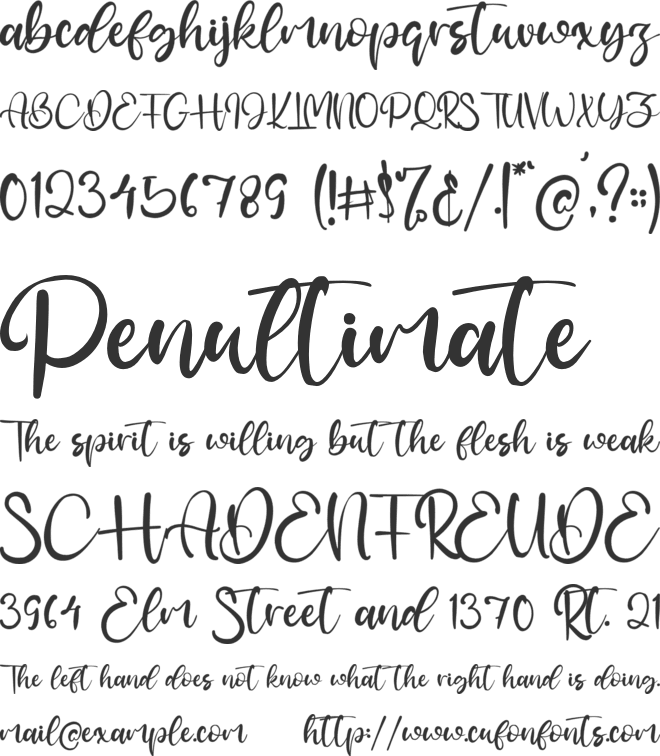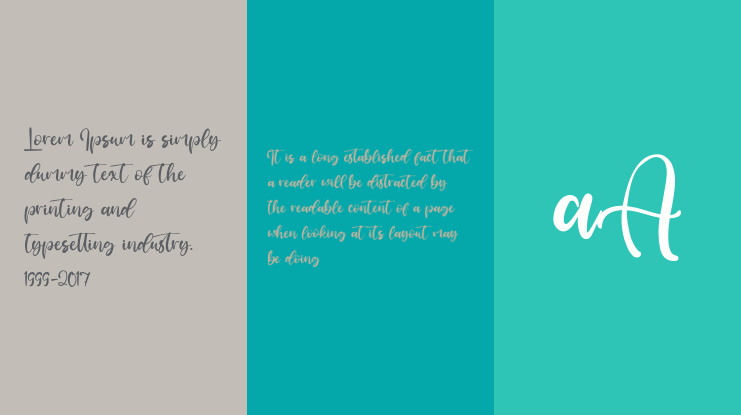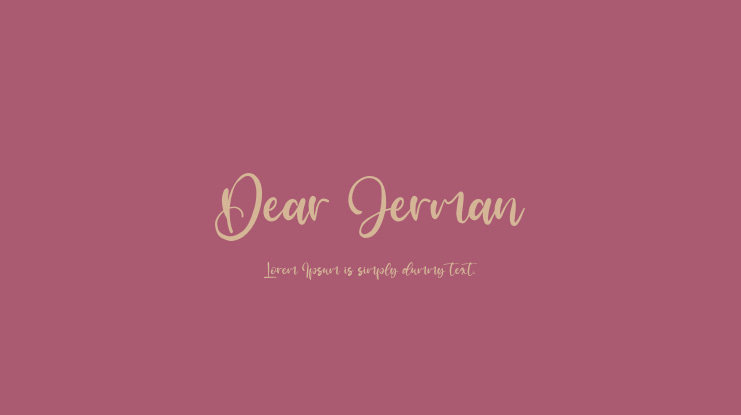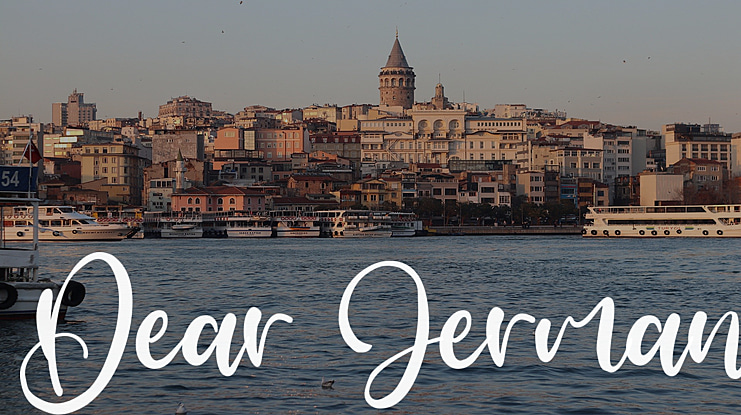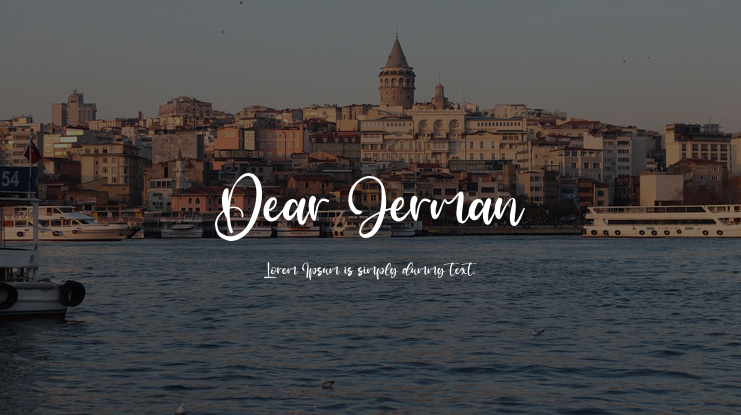
Dear Jerman Font
Dear Jerman Modern Script Typeface, A collection of letters and numbers suitable your projects also great for Logotype, Branding Design, Logo Design, Digital Lettering Arts, T-Shirt/Apparel, Poster, Magazine, Signs, Advertising Design, and any design needs.Click our website : https://staircaselab.com/product/dear-jerman/